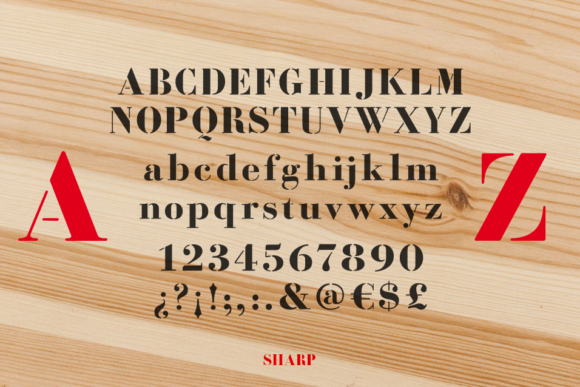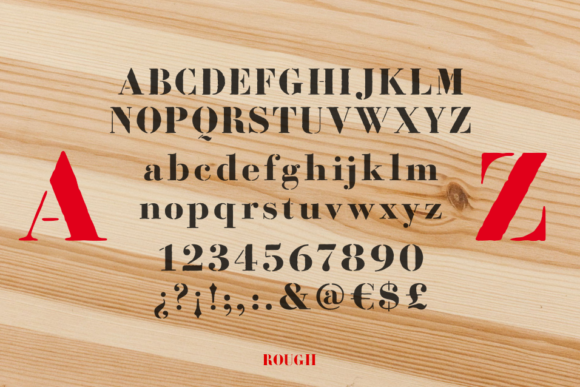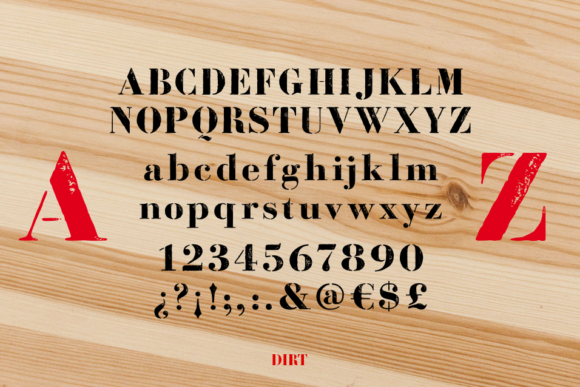
Bodoni Fragile Font
Bodoni Fragile feels equally charming and elegant. Whether it’s for web, print, moving images or anything else this serif font will look spectacular.